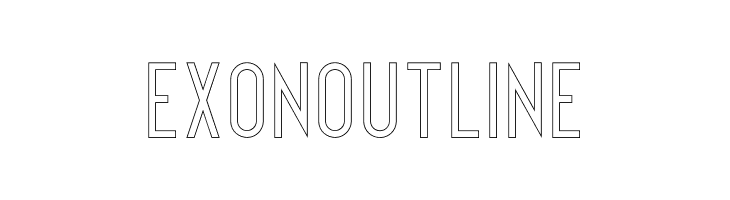
A bold outline font with a modern yet vintage flair, featuring hollow interiors and consistent character width.
An outlined font with geometric structure and consistent design.
A modern, geometric outline font with uniform line thickness and balanced proportions.